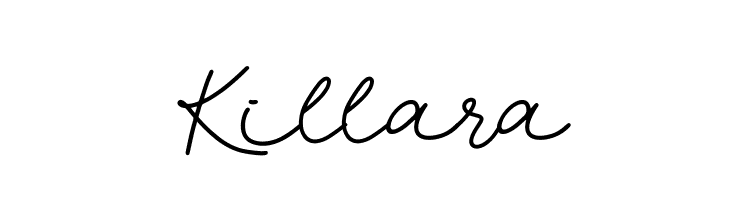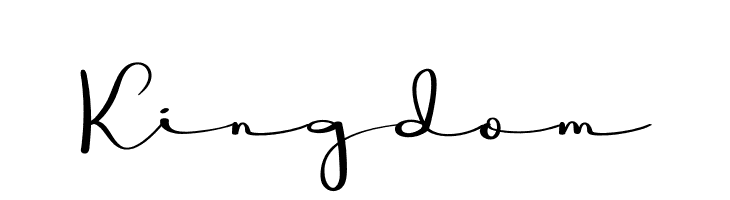
A fluid, cursive font with a natural handwriting style.
A bold, dramatic serif font with strong, angular serifs and a modern twist.
A classic serif font with modern elegance and medium contrast.
A bold, sketch-like font with dynamic, irregular strokes and a hand-drawn feel.
A jagged, distressed font with sharp, irregular strokes for a chaotic look.
A playful and dynamic script font with flowing, cursive letterforms.
A bold, playful handwritten font with rounded characters.
A playful and elegant script font with fluid, cursive letterforms.
A playful handwritten font with tall, narrow letters and a whimsical style.
A bold serif font with high contrast and elegant styling.